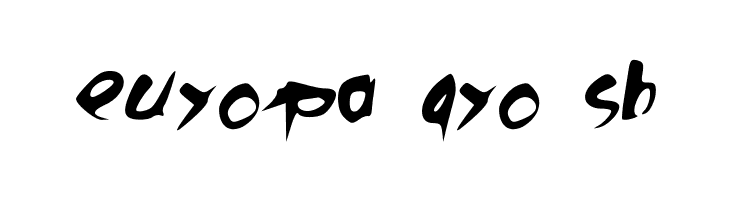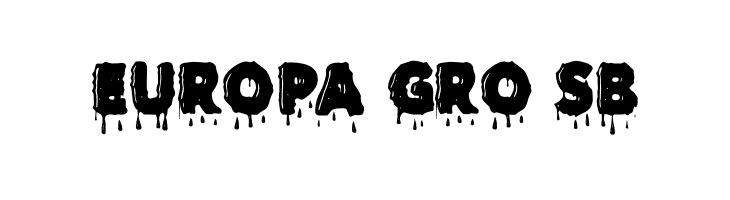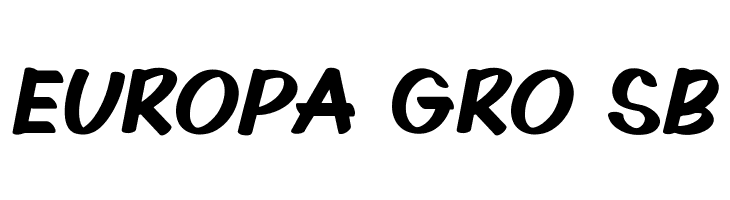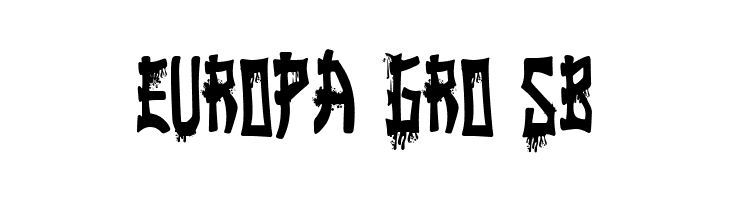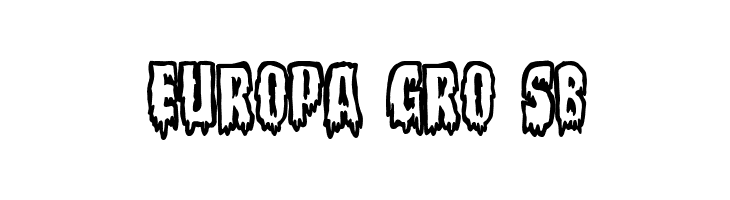
A bold, dynamic script font with fluid, energetic strokes and a hand-drawn appearance.
A bold, dripping font perfect for horror-themed projects.
A bold, handwritten-style font with dynamic, slanted characters.
A playful, handwritten font with tall, slender characters and an informal style.
A bold, gothic-inspired font with sharp, angular edges and a dramatic presence.
Distressed, horror-themed display font with splatter and drip effects.
A bold, horror-themed decorative font with dripping, jagged edges.
Casual handwritten script with rounded, playful forms.